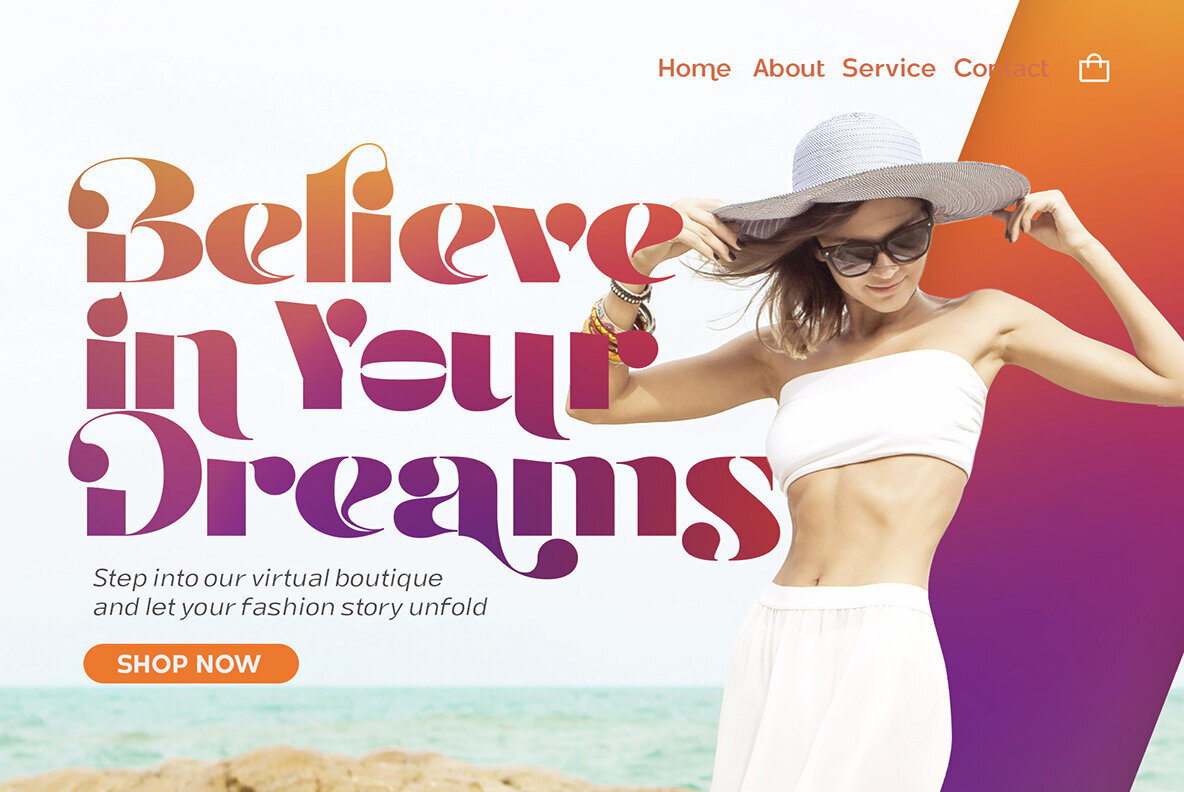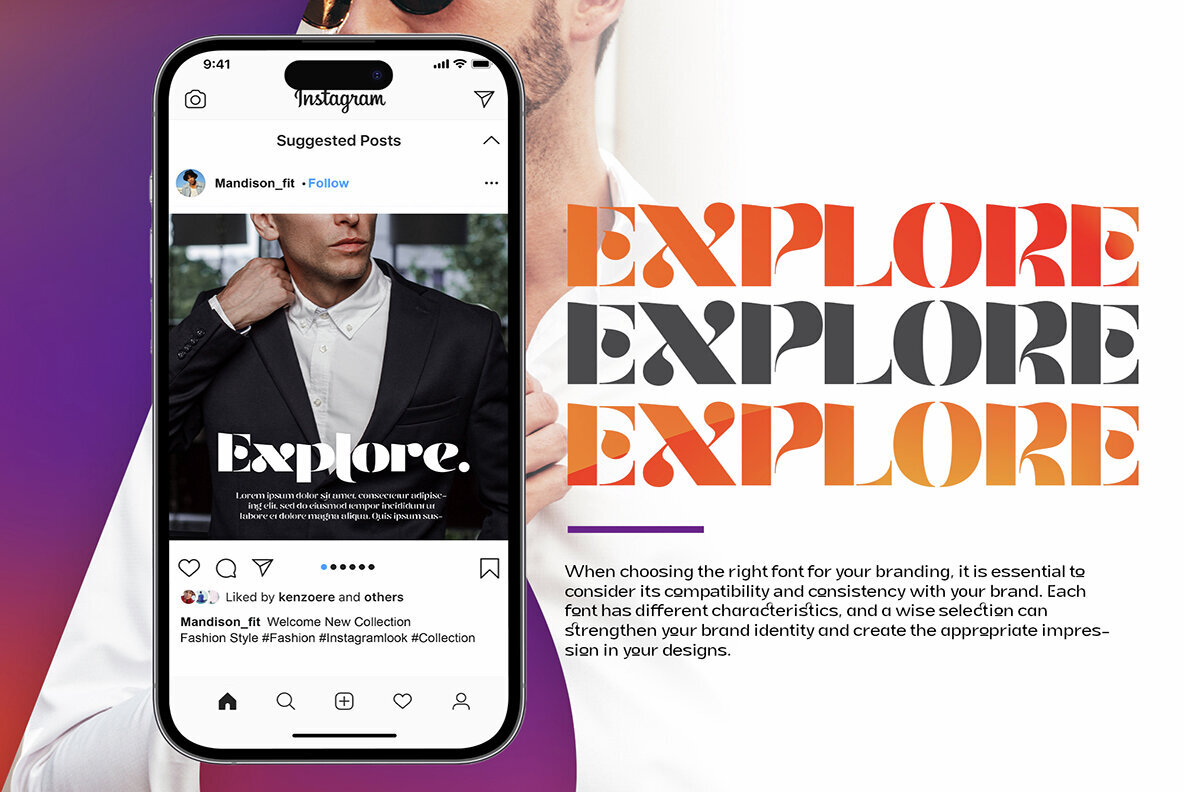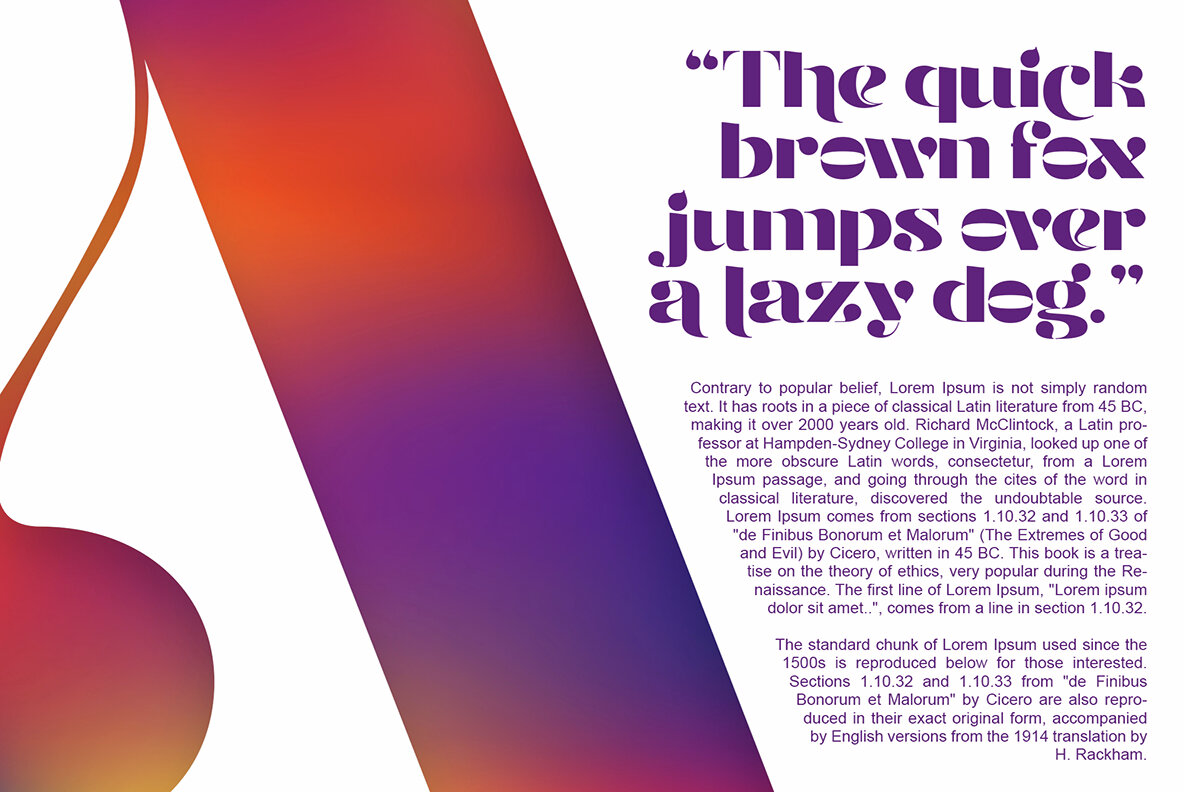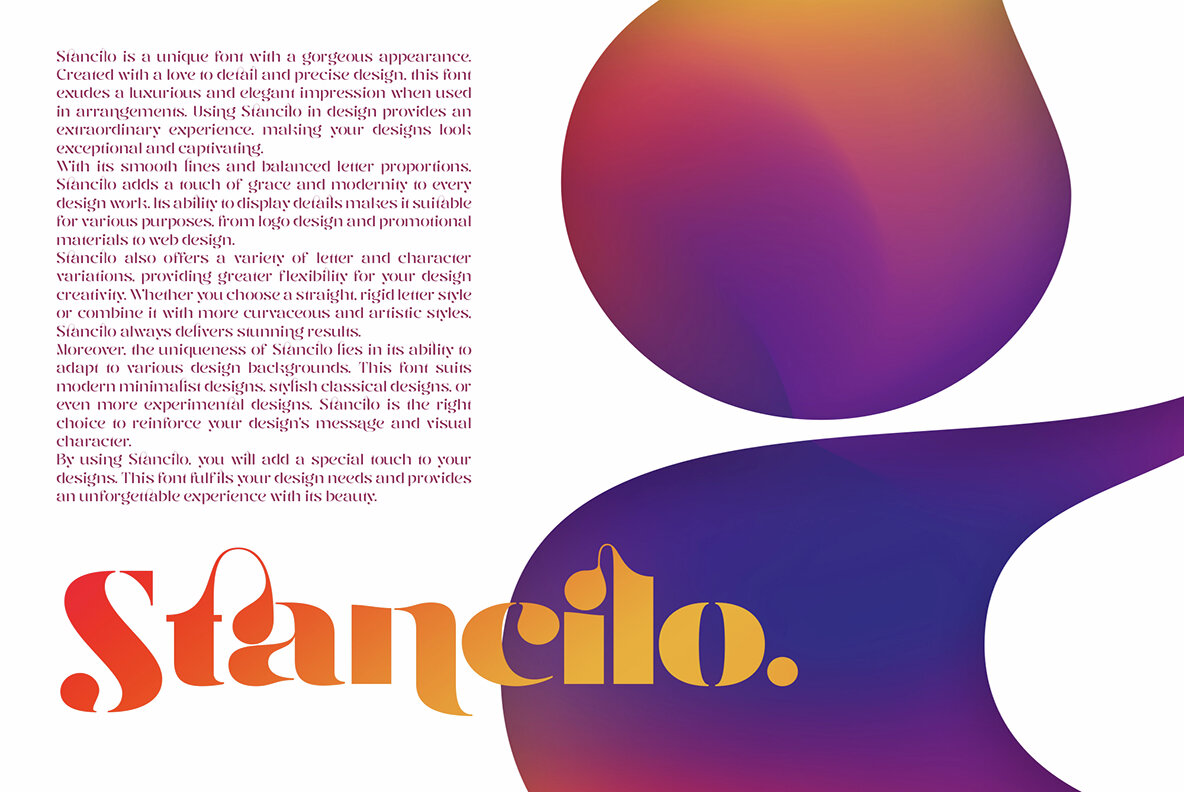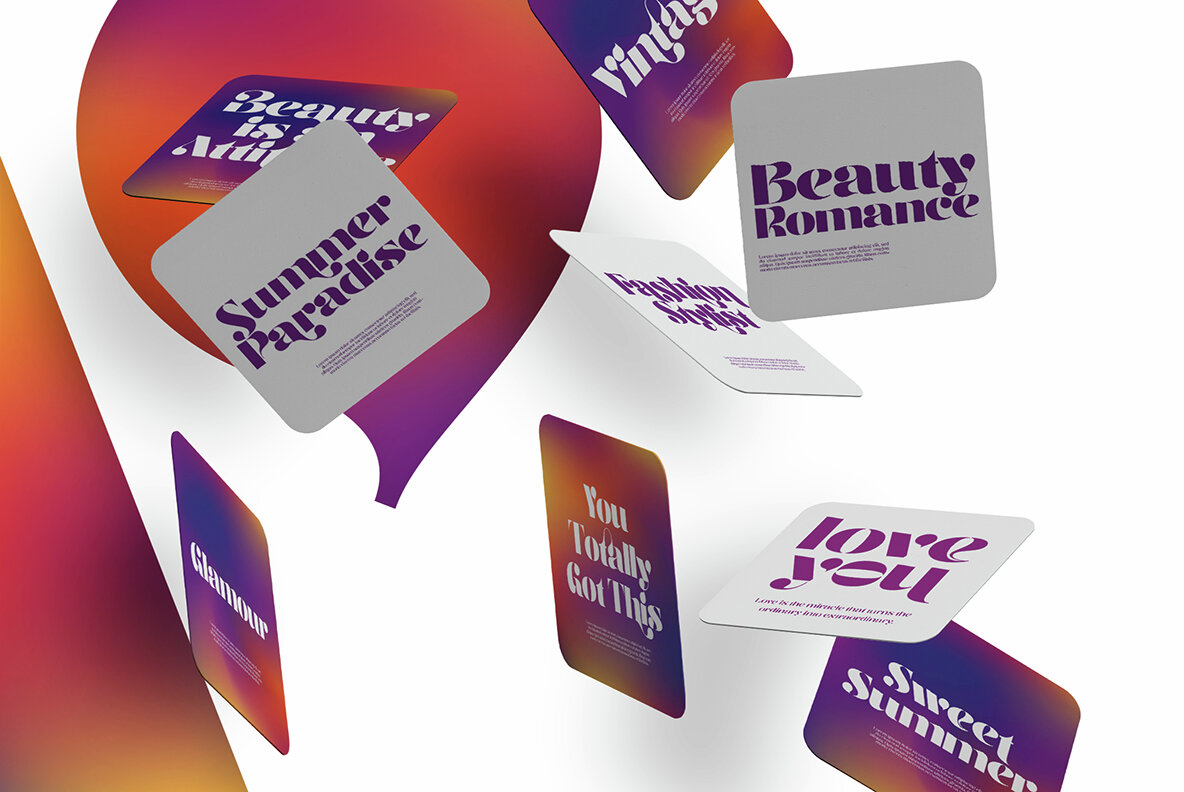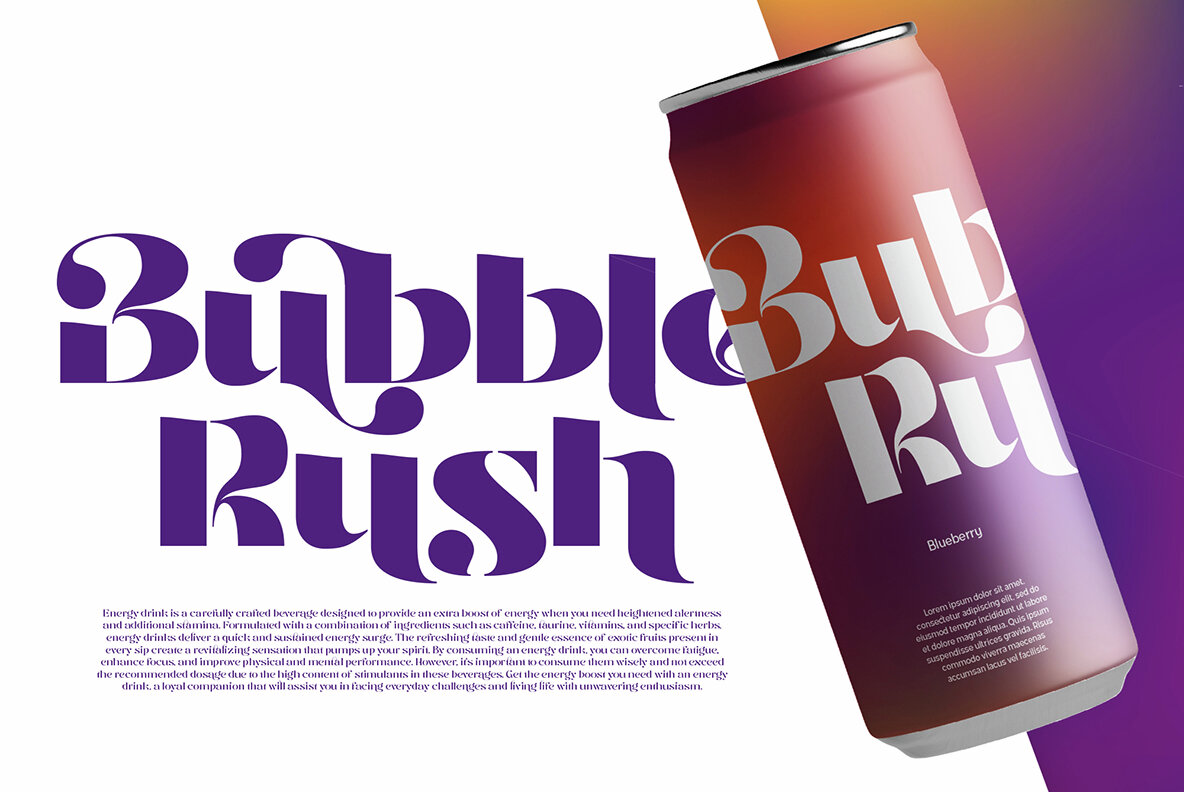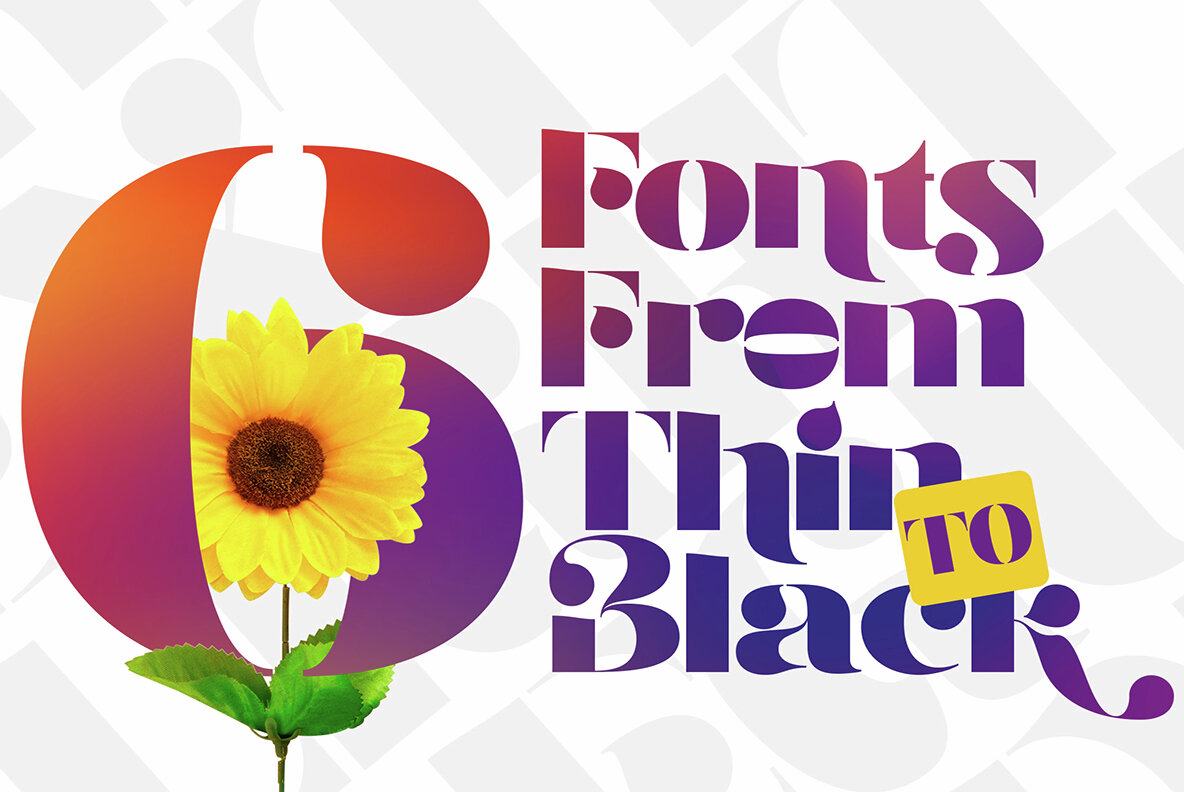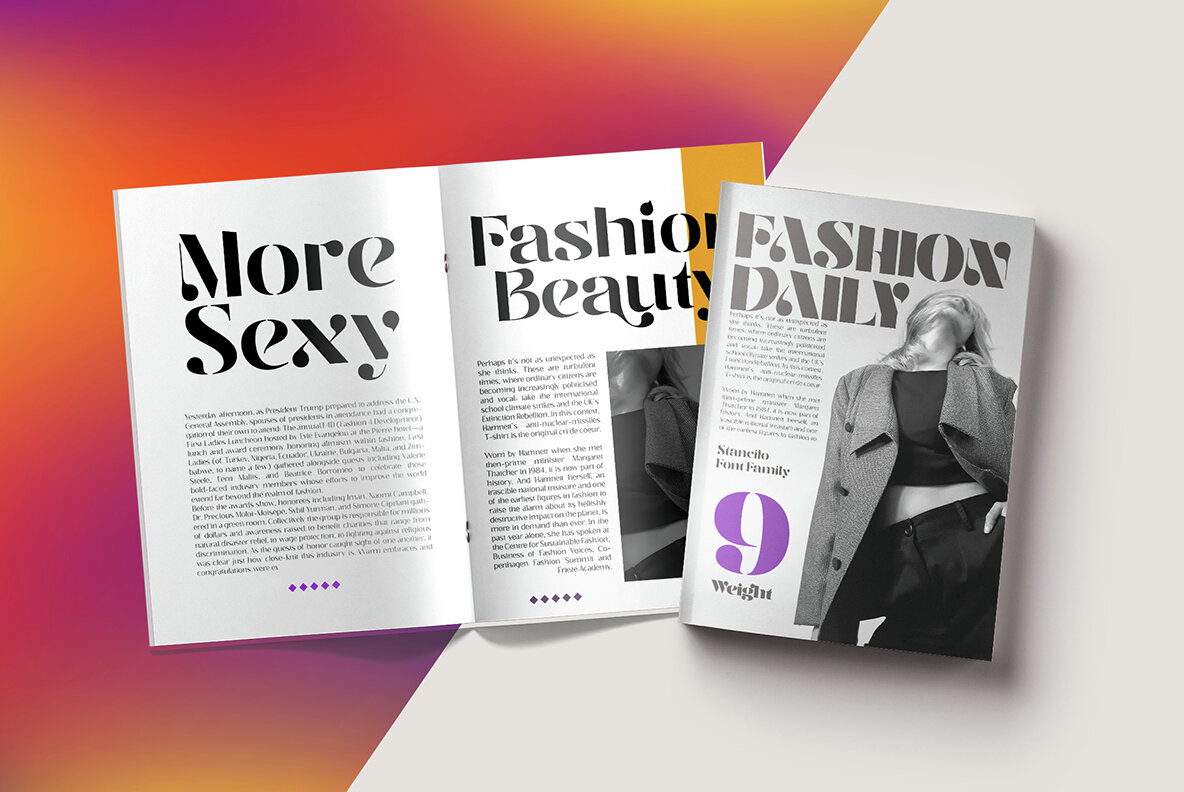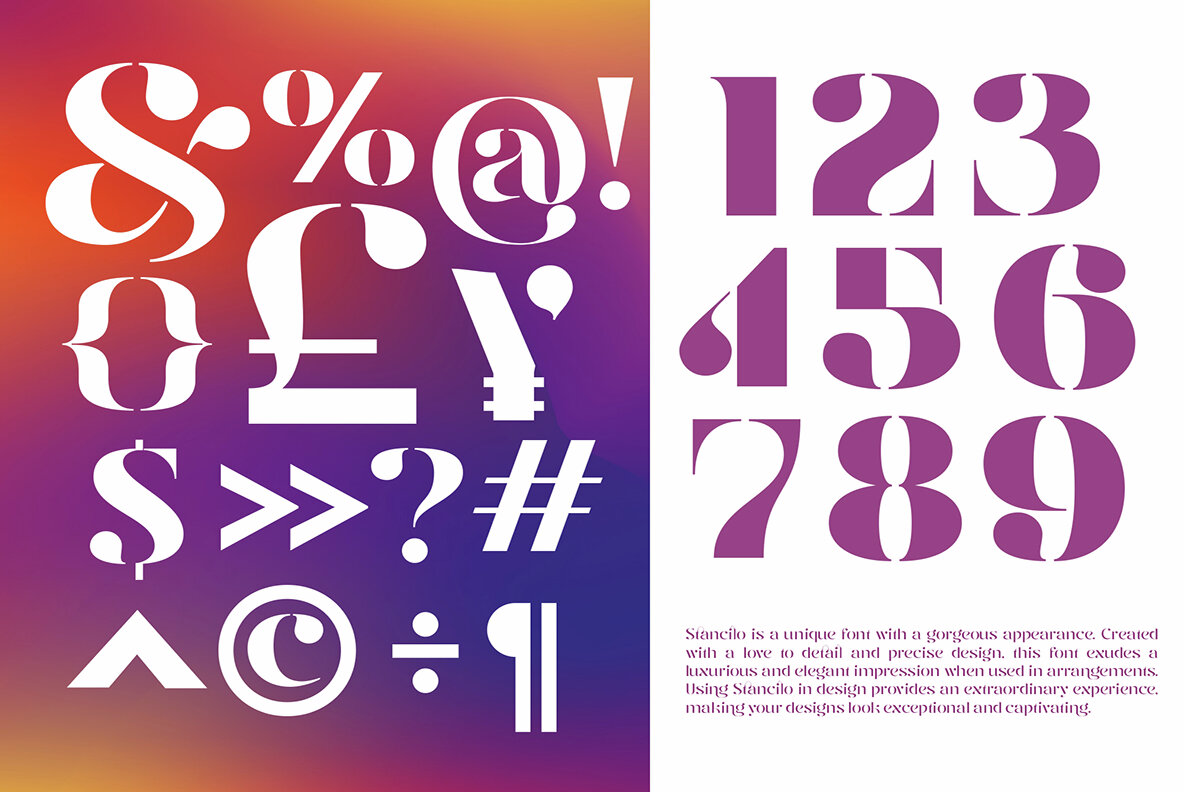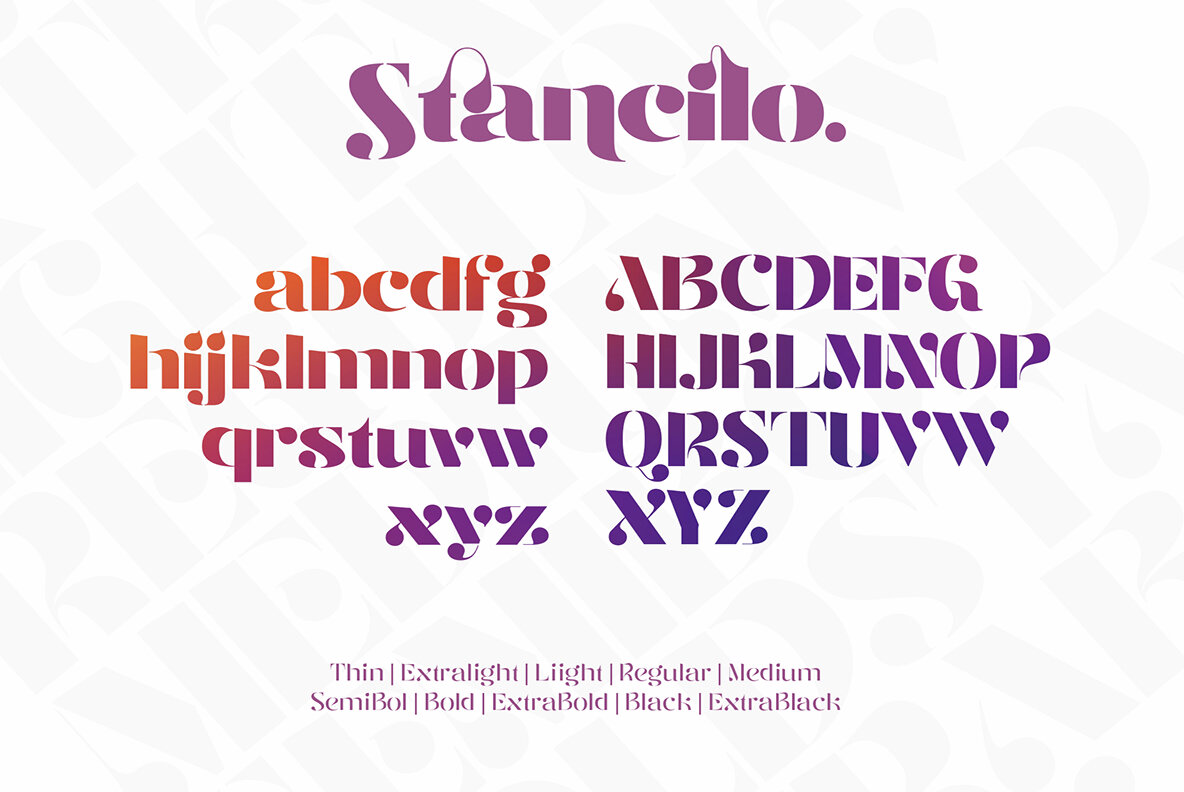
Stancilo Font
Stancilo is a type of serif font that offers uniqueness in its form. With a distinctive design and superior aesthetics, this font gives each character an elegant and modern touch. Stancilo font has nine different thicknesses, ranging from thin to bold, providing flexibility and variation. Thus, this font can be used for various design purposes, from main headings to body text, with the ability to adjust the desired intensity and emphasis. One of the advantages of Stancilo is the presence of alternate letters and ligatures that provide character variations for each letter. Allows users to combine alternate letters or use special ligatures to create more harmonious combinations and relationships between characters within words. This feature adds a sense of personalization and additional creativity to the design. Furthermore, Stancilo font also supports multiple languages, making it suitable for multilingual design projects. With the support of diverse languages, this font enables effective and comprehensive visual communication in various cultural contexts. Stancilo is a prominent serif font with a unique form, providing nine different thicknesses, alternate letters, and ligatures. These advantages make it suitable for elegant, modern designs and allow for creative exploration in using its letters. With support for multiple languages, this font becomes a versatile and inclusive choice for diverse design projects.